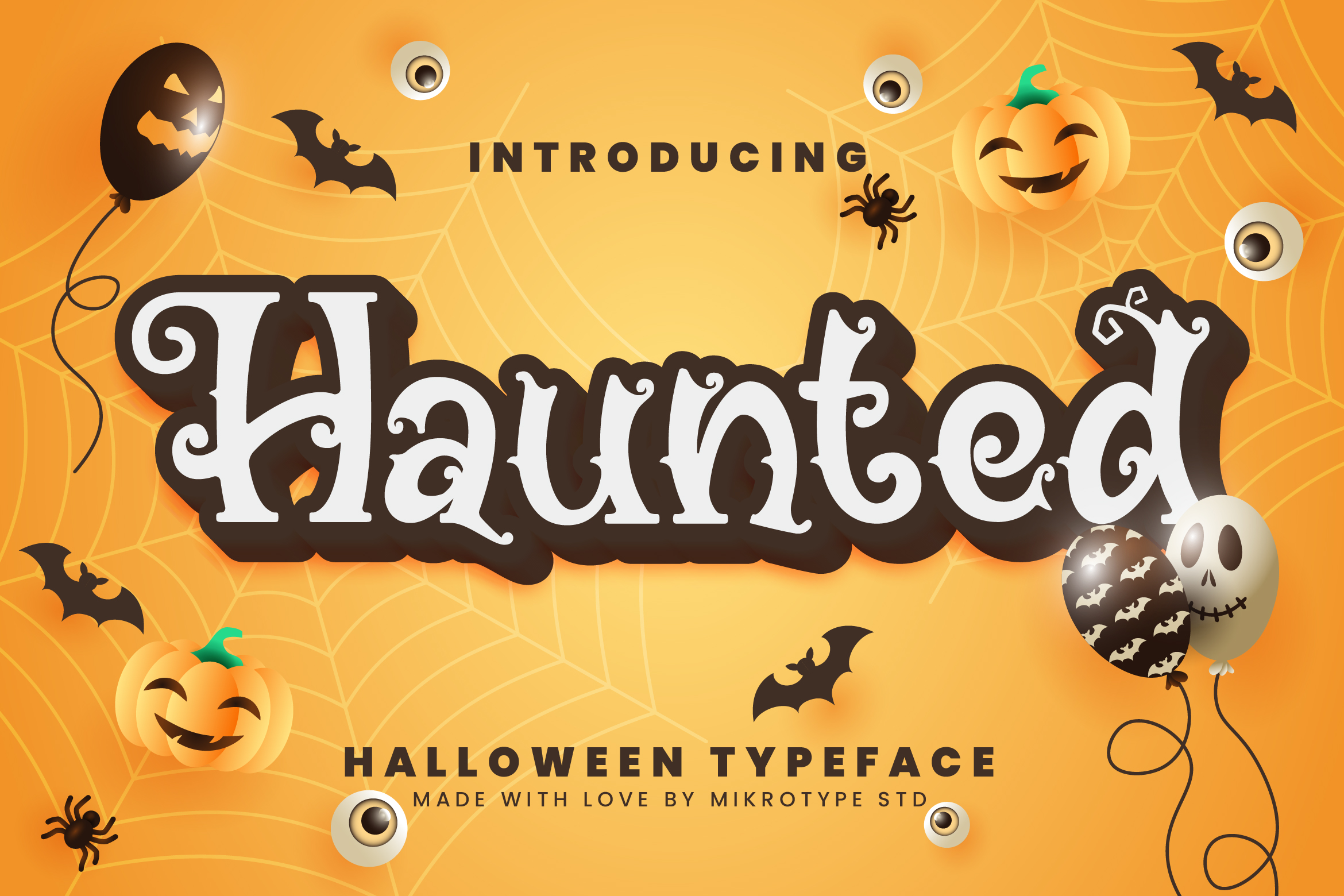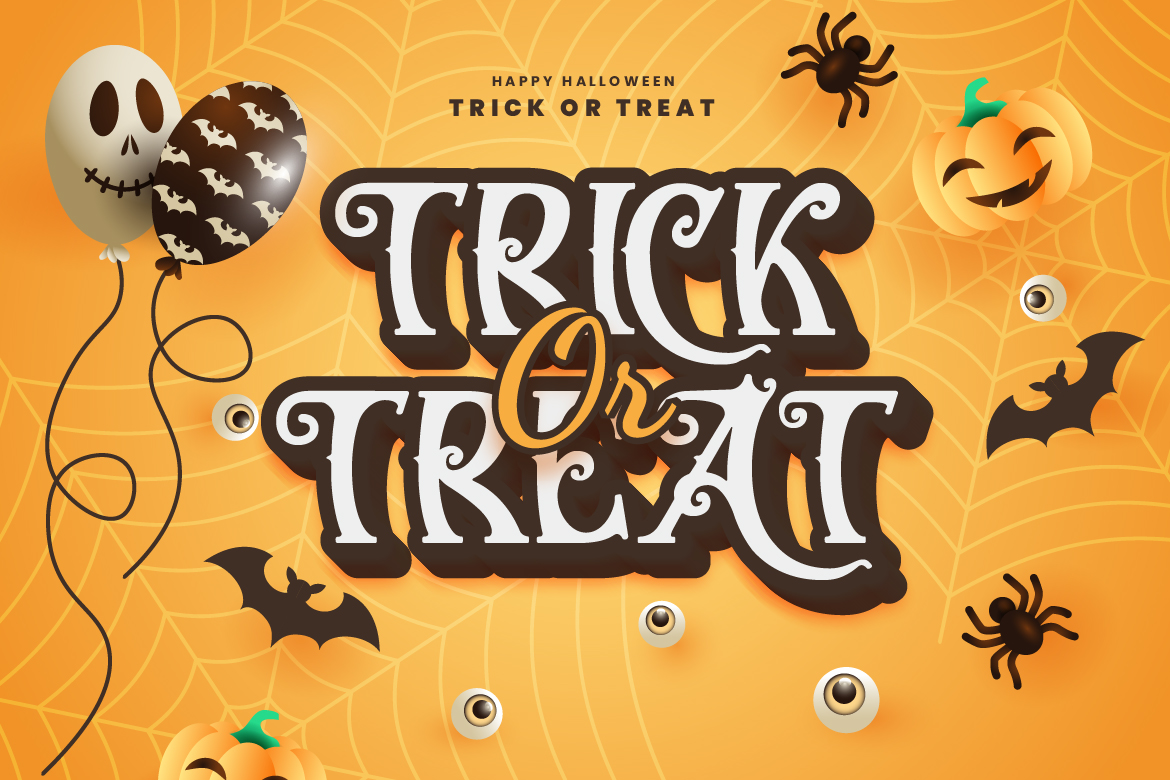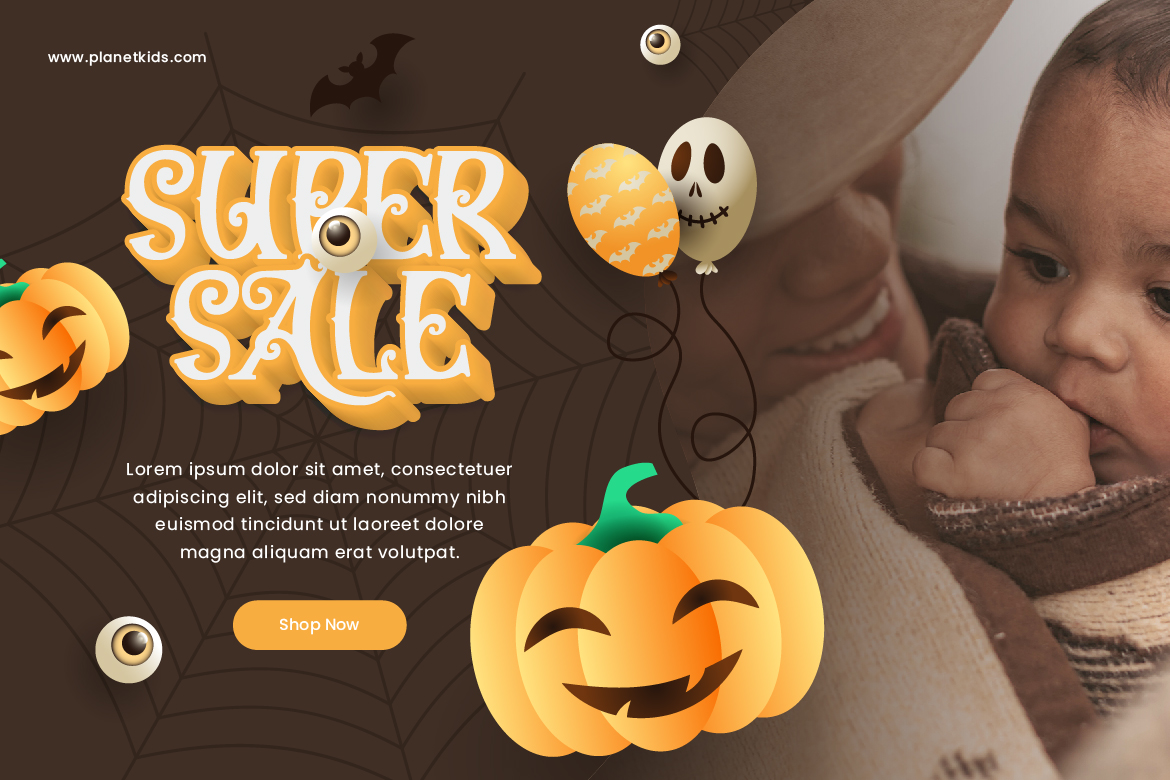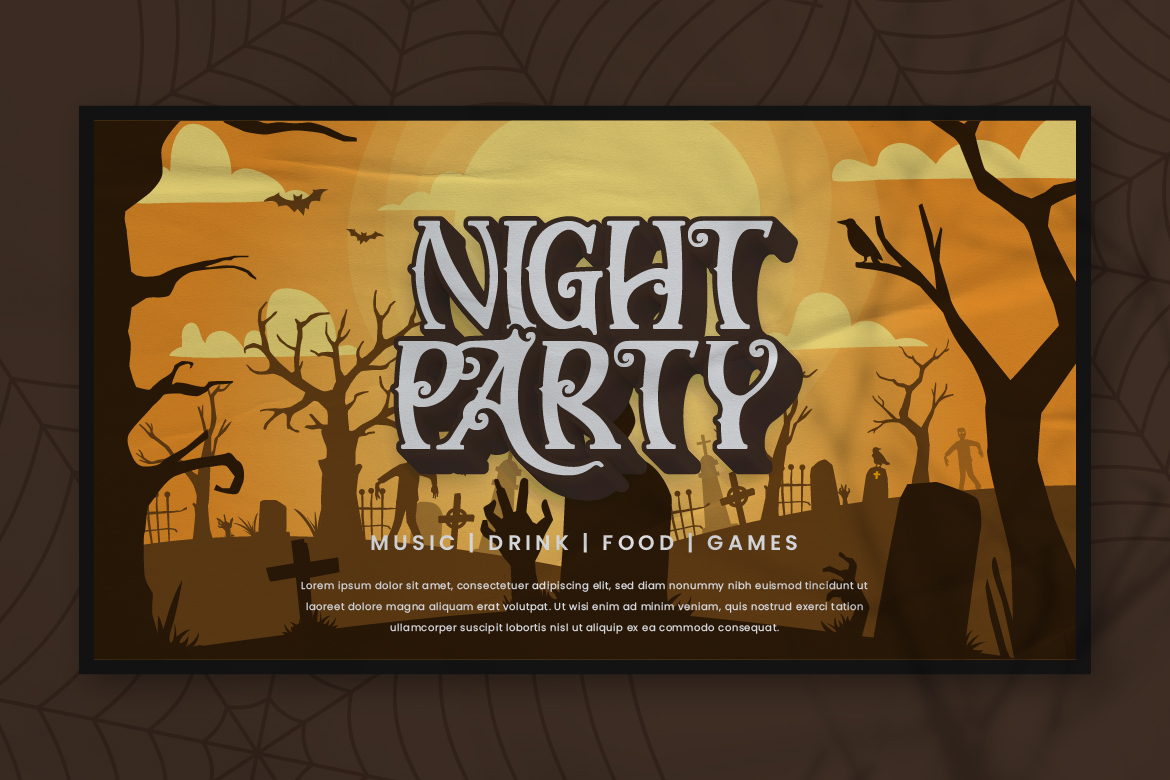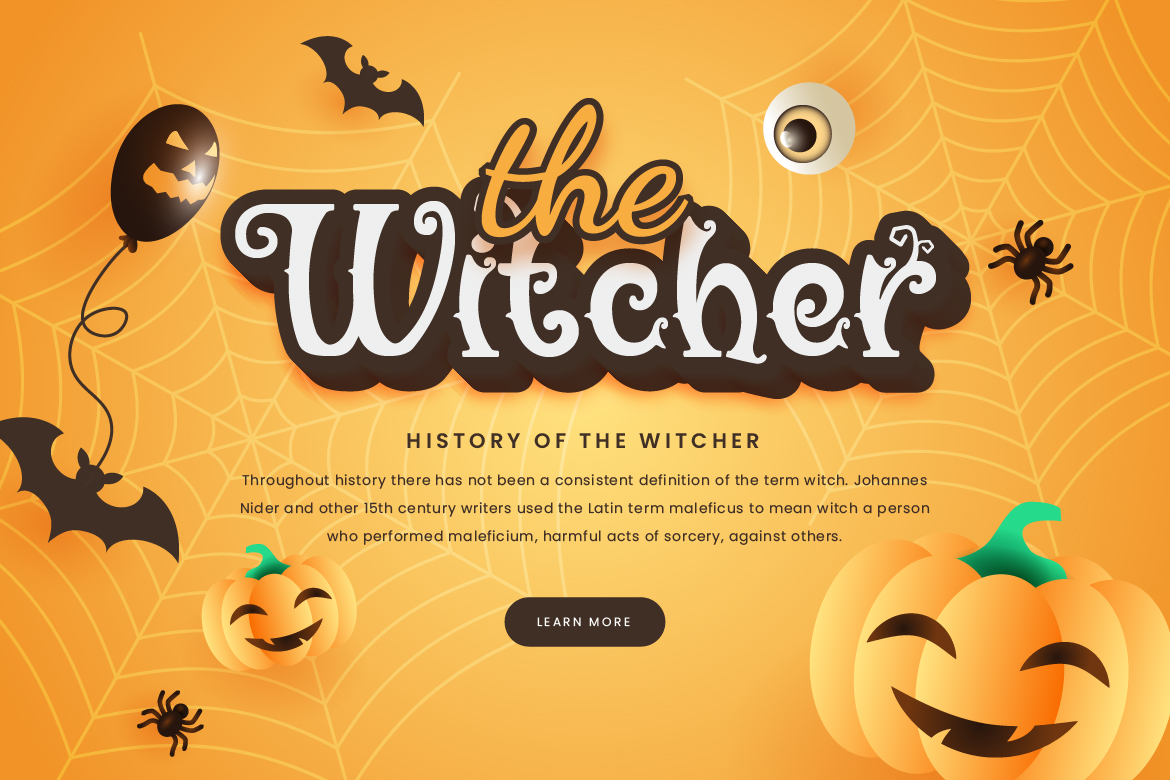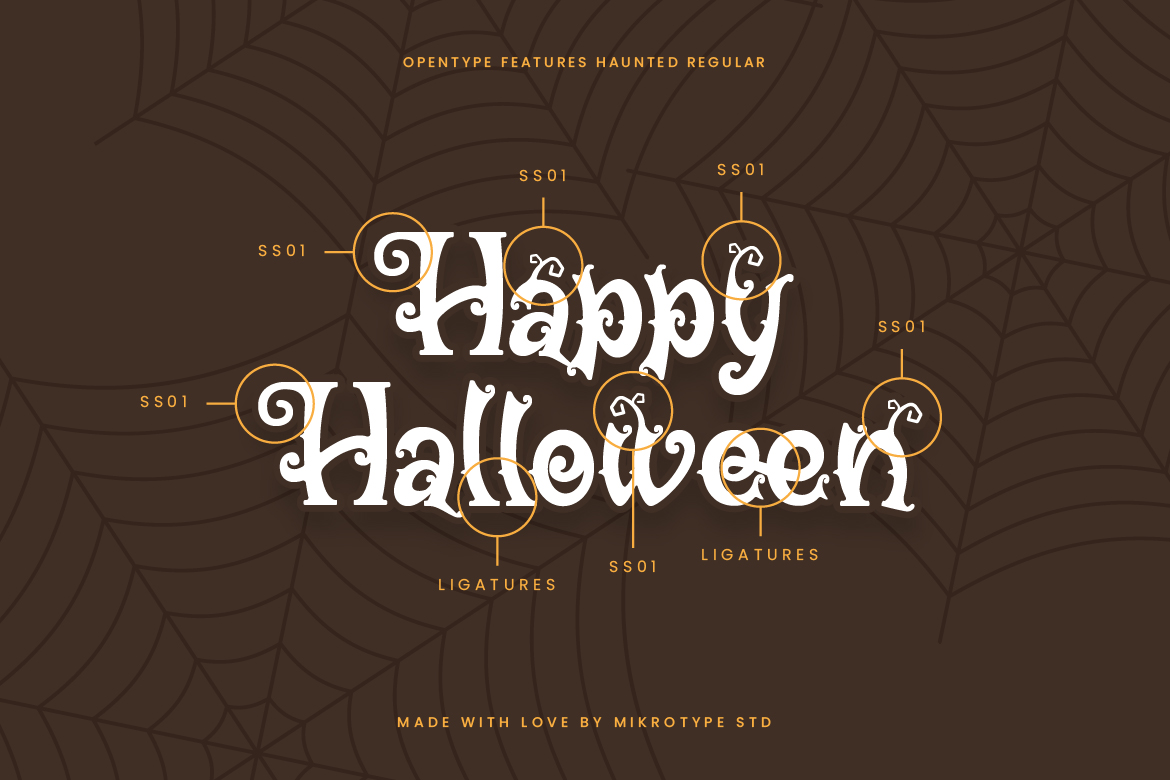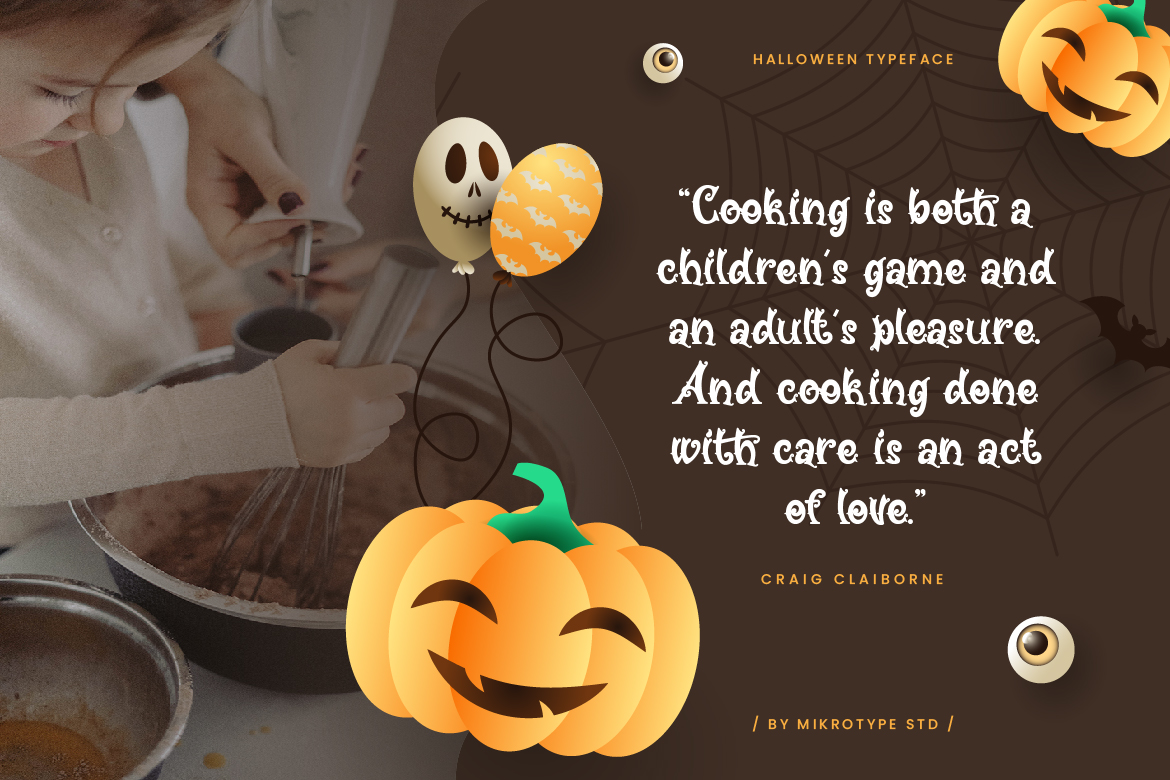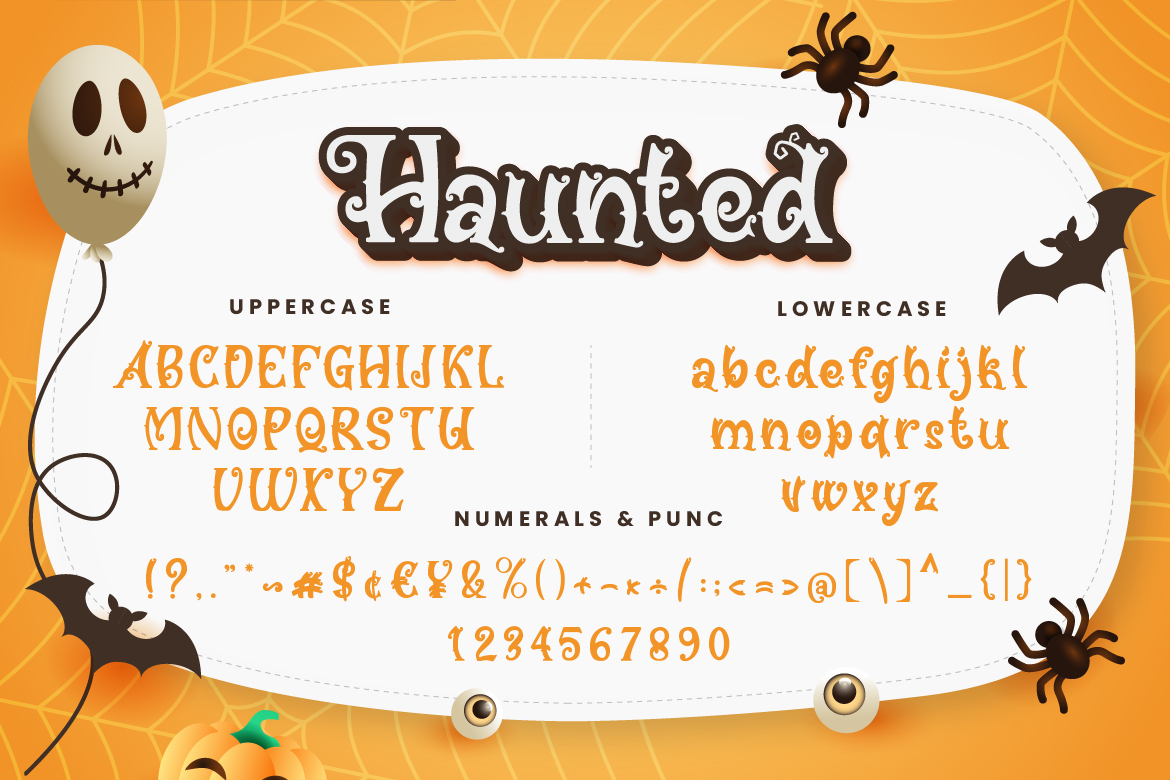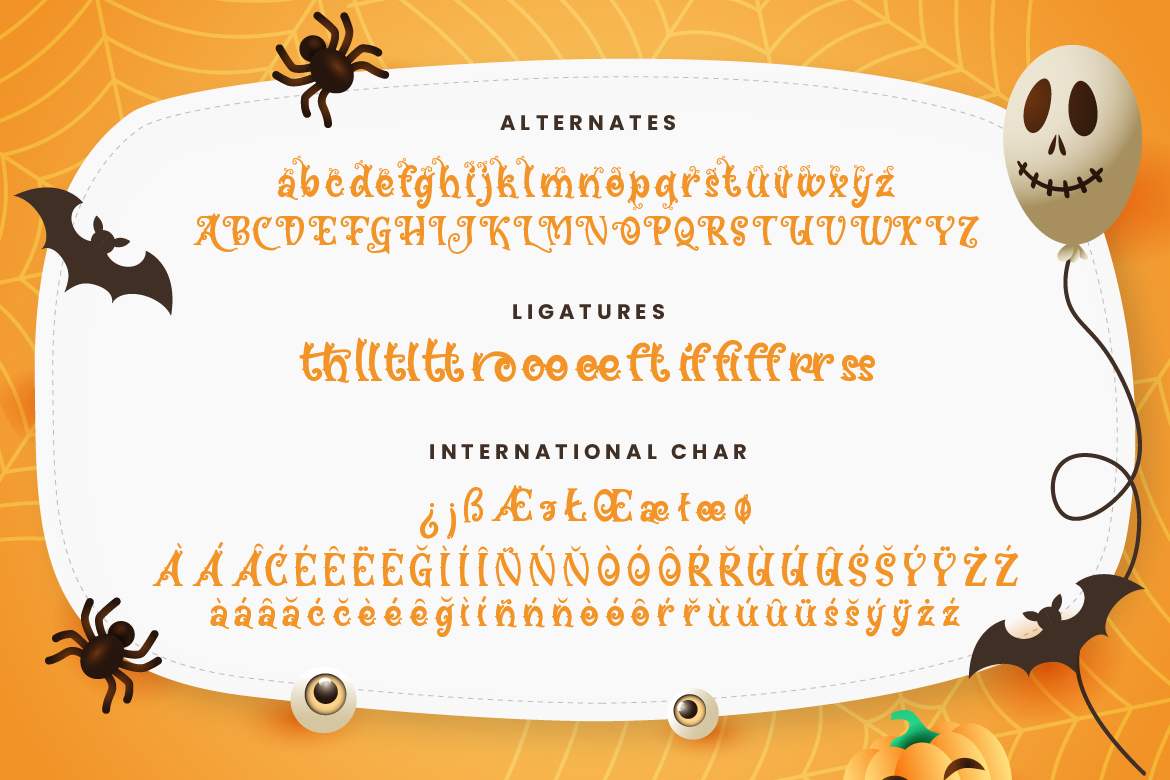
Haunted Halloween Typeface
Introducing Haunted – A Halloween typeface that is specially made to produce unique letter shapes. With its curly shape, it sets this font apart from the rest, making all your big projects look absolutely stunning. There are 13 types of ligatures and 52 types of alternatives in this font. The font is perfect for for movie title, logo, blogging, brand identity, book title, social media, branding, wedding invites, cards or simply use it in your next design project and suitable to use for many occasion.
• Ligature & Alternate